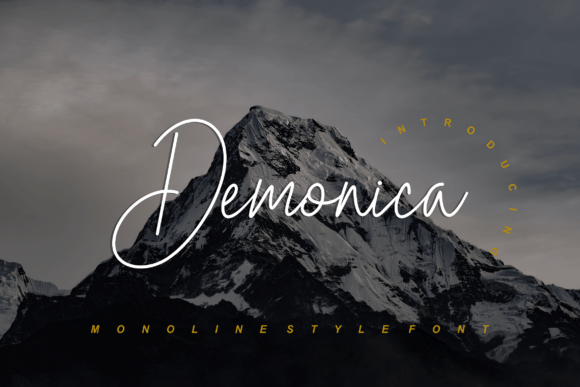
Introducing Demonica Font, a dazzling script font designed to unleash your creativity and transform your designs into captivating works of art. Crafted by the skilled hands of kalingga.albert, Demonica exudes an aura of elegance and authenticity that will elevate any project you undertake.
Immerse yourself in the world of Demonica, where intricate lines dance harmoniously, creating a visual symphony that captures the essence of timeless beauty. This exquisite font is a perfect fit for logo designs, adding a touch of sophistication and charm to your brand's identity. Unleash your inner fashionista and let Demonica adorn your t-shirt designs, giving them a unique and eye-catching appeal that will make heads turn wherever you go.
With Demonica, the possibilities are endless. Embark on a creative journey and explore the vast horizons of design, letting your imagination run wild. Whether you're creating logos, t-shirt prints, or embarking on export projects, Demonica will be your steadfast companion, guiding you towards design excellence.
Experience the unparalleled versatility of Demonica, a font that adapts effortlessly to a myriad of contexts. From the delicate curves of wedding invitations to the bold statements of posters, Demonica seamlessly blends with your vision, enhancing it with its timeless grace.
Don't settle for ordinary fonts that fade into the background. Choose Demonica, a font that commands attention and leaves a lasting impression. Its intricate details and captivating charm will transform your designs into masterpieces that resonate with your audience.
Take the plunge and embrace the power of Demonica today. Discover the endless possibilities that await you as you embark on a creative odyssey with this extraordinary font. Let Demonica be your muse, guiding you towards design greatness and leaving an indelible mark on the world.